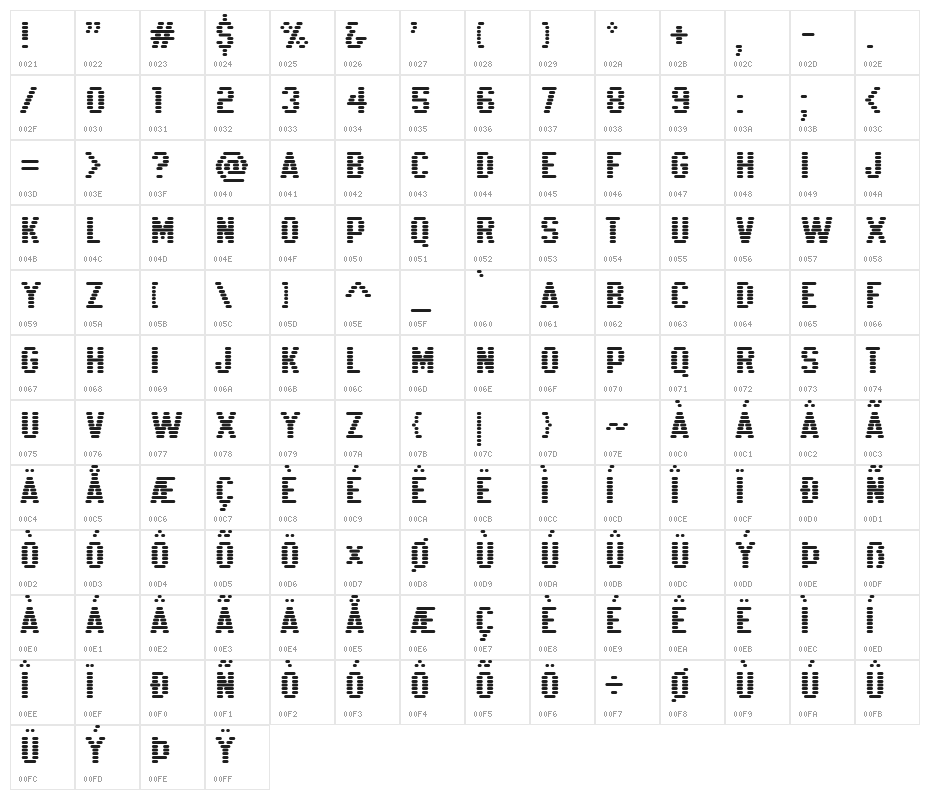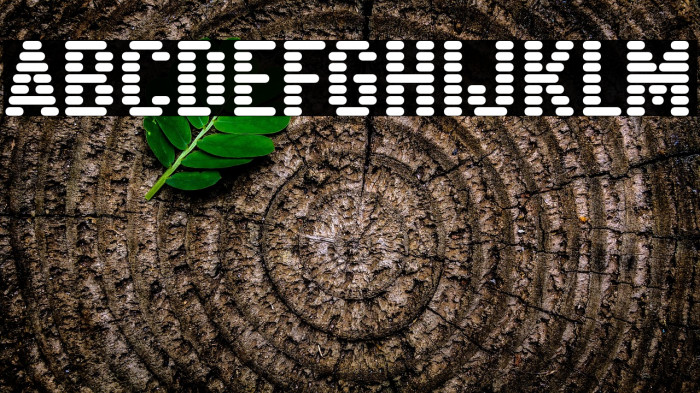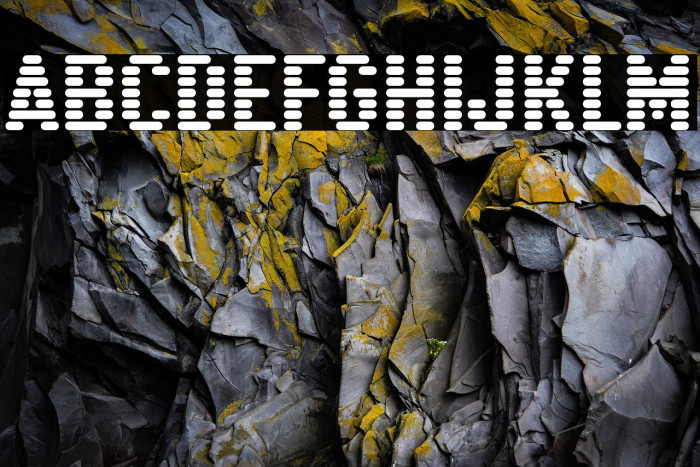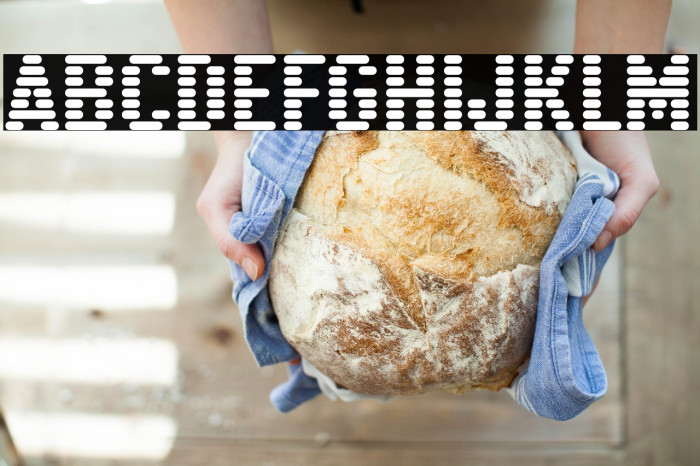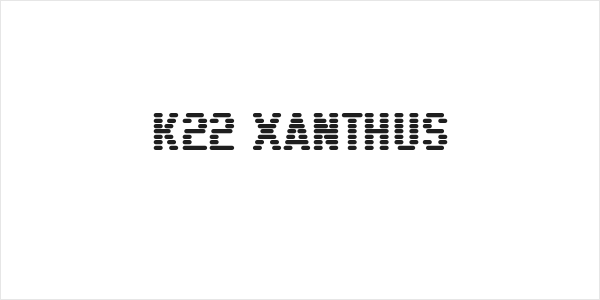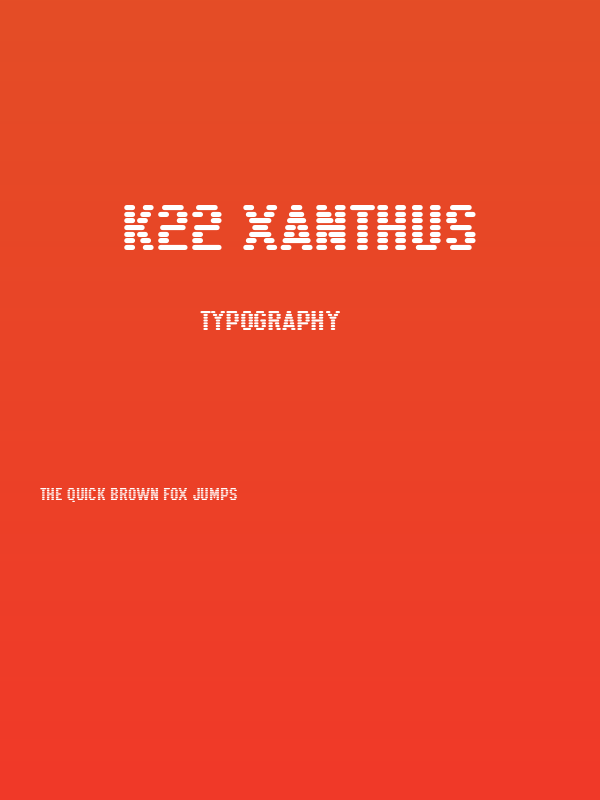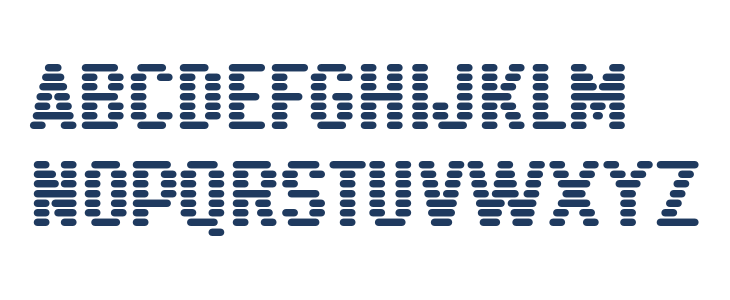
K22 Xanthus Font
K22 Xanthus Description
This font features a unique and modern design, characterized by its dotted pattern that forms each letter and number. The dots are evenly spaced, creating a consistent and structured appearance. The font is bold and eye-catching, making it suitable for display purposes. Each character is constructed with a series of horizontal and vertical dots, giving it a digital or futuristic feel. The uppercase and lowercase letters maintain a uniform style, while the numbers and special characters follow the same dotted motif. This font's distinct style makes it ideal for projects that require a modern and innovative look.